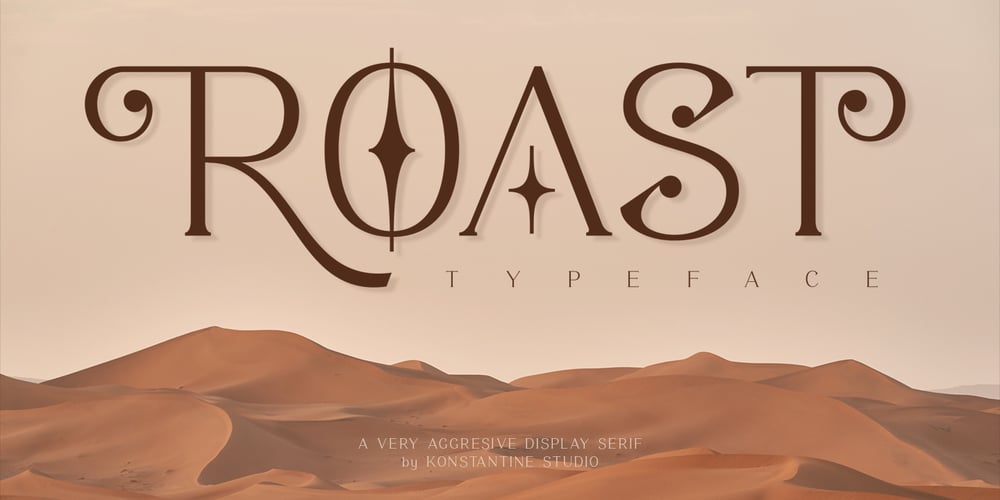
Roast Serif Font Family was designed by Abdilah and published by Konstantine Studio. Roast Serif contains 1 styles and family package options. You can be wild and bold in an elegant way. And serif typeface can be very wide and versatile without losing the characteristic. That’s where the ROAST came from. An elegant serif Display typeface with a lot of special alternate letters in every single letters. Elevate your elegant vibes with pushing the style in edgy way instantly with this font.